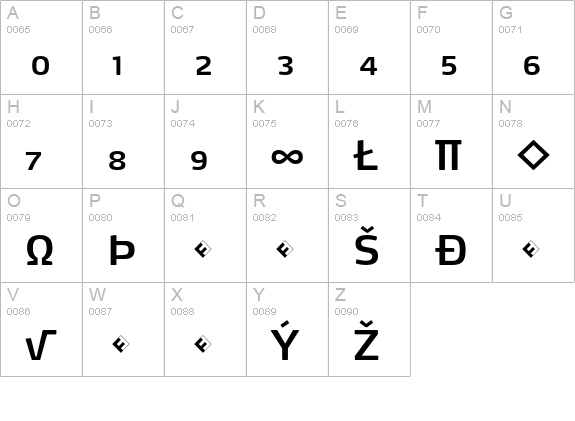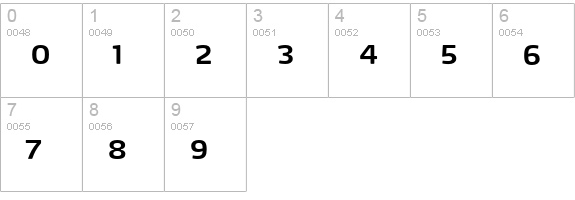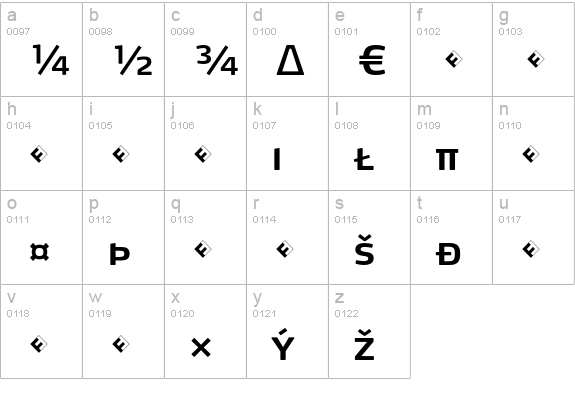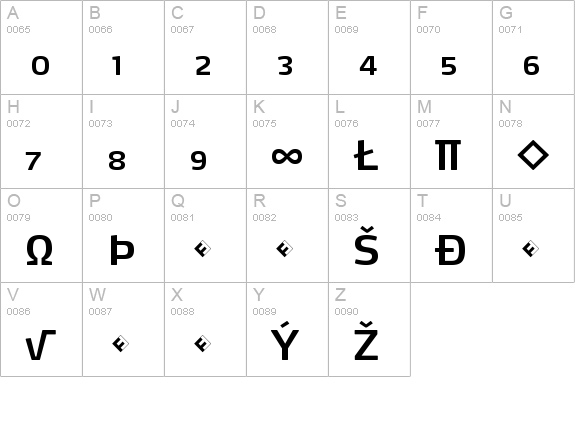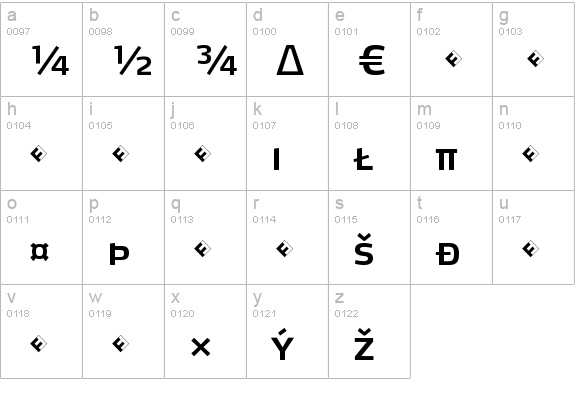
Max-SemiBoldSCExpert Font Details
Max-SemiBoldSCExpert font is a sleek and modern typeface that exudes confidence and sophistication. With its semi-bold weight and expertly crafted design, this font is perfect for making a bold statement in your projects. The condensed style adds a touch of elegance and professionalism, making it ideal for headlines, titles, and branding materials. What sets Max-SemiBoldSCExpert font apart is that it is available for free download at FontsMarket.com. This means you can easily access and use this premium-quality font without any cost, making it a valuable addition to your design toolkit. Whether you're working on a website, brochure, poster, or any other project, Max-SemiBoldSCExpert font will elevate your typography and help you create stunning visuals that capture attention.